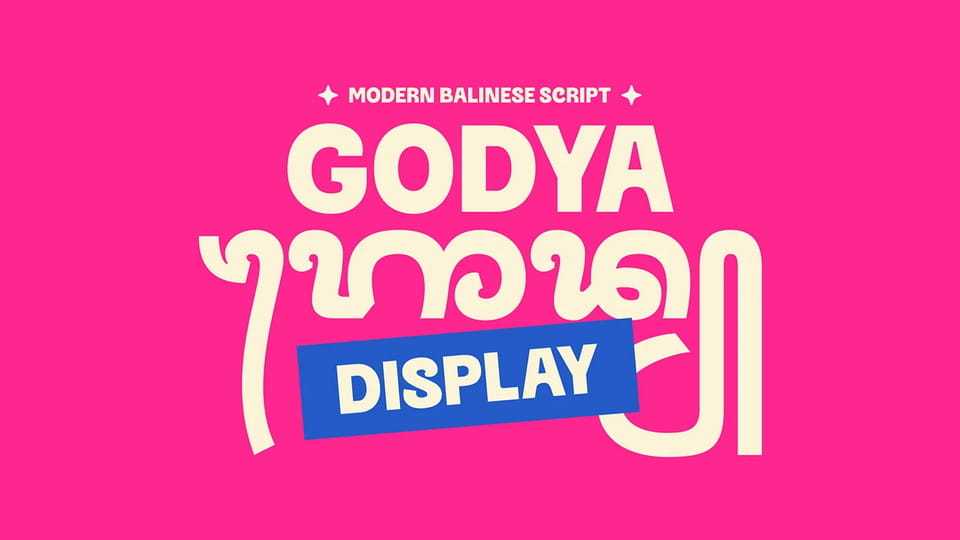
Download Godya Display font, a Balinese script typeface designed with a decorative purpose rather than for long-text reading. This project aims to allow Balinese script to stand out and visually coexist on equal footing alongside Latin typography.